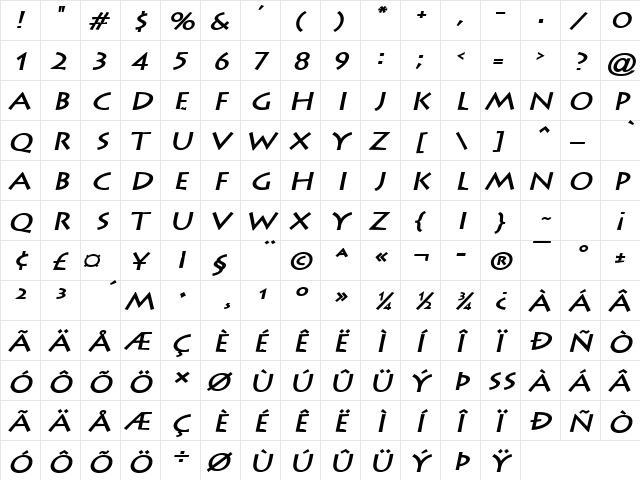
Liste Wide BoldItalic
Design Context for Liste Wide Typeface
Liste Wide is a composed and adaptable typeface that performs quietly and consistently across a wide range of design contexts. Its italic angle brings a sense of urgency and motion to the letterforms. The heavy weight commands attention and anchors typographic hierarchies.
Pro Tip: Use Liste Wide for emphasis, pull quotes, and subheadings where its slanted energy can add rhythm to the layout.